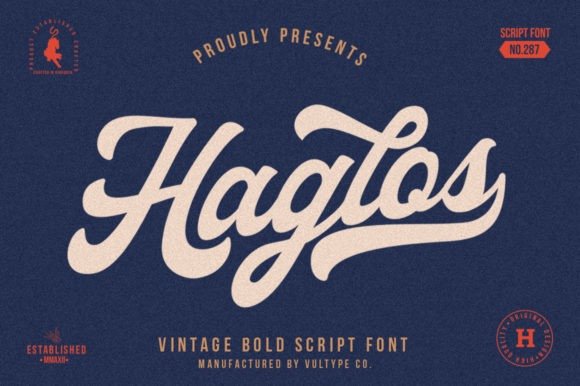
Haglos Bold Script Font
Hello friend. This is one of bold vintage script fonts, it’s a new bold script font that is very well designed and has contextual alternates features so it can look like handwriting, perfect for your extraordinary projects! Introducing Haglos Font.
It’s a vintage script with a beautiful look. It features bold and smooth curves and great legibility! Terminal Form and Ornament that allows you to mix and match pairs of letters to fit your design. This font good for vintage design, t-shirt, logo, labels,badges, posters and etc.